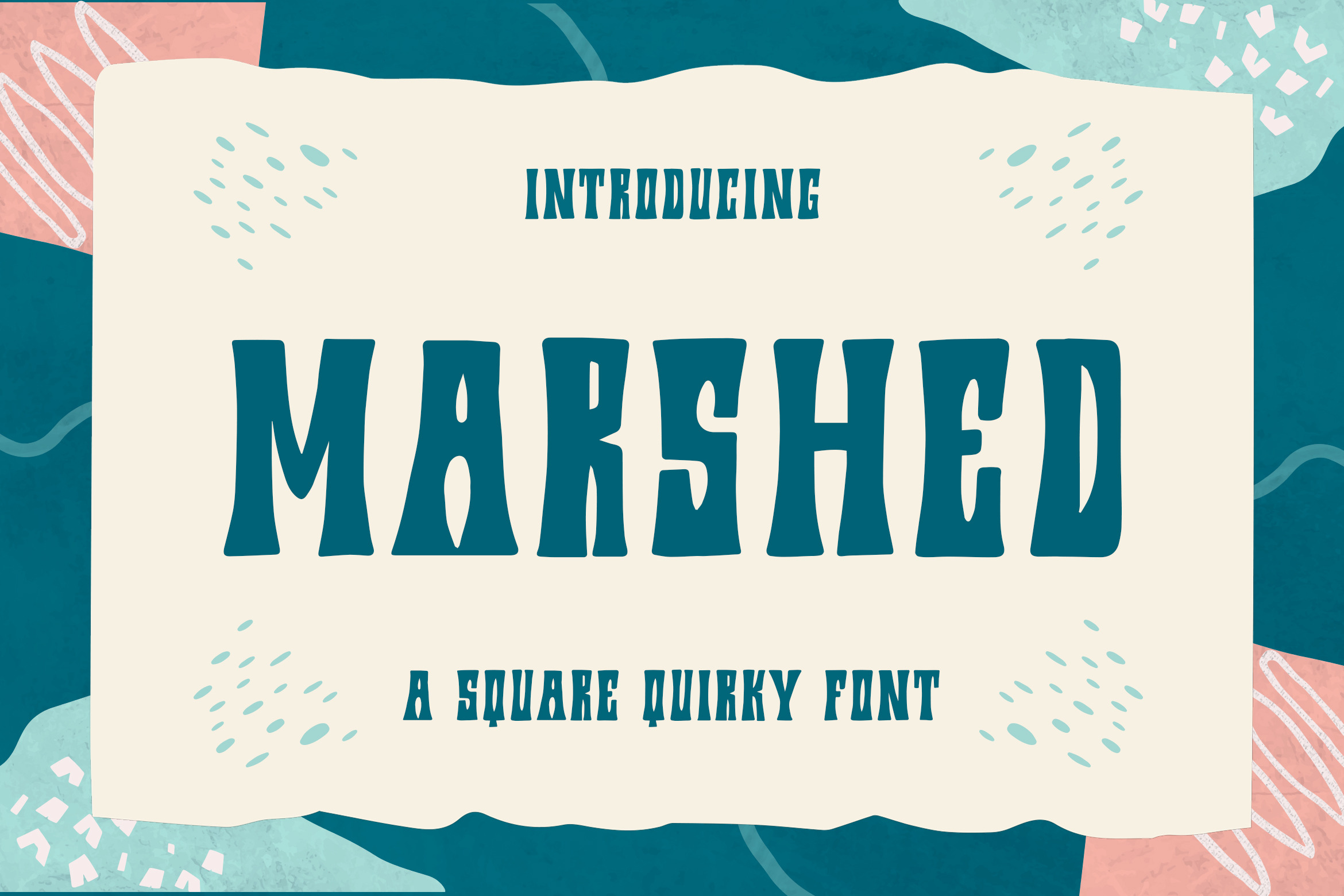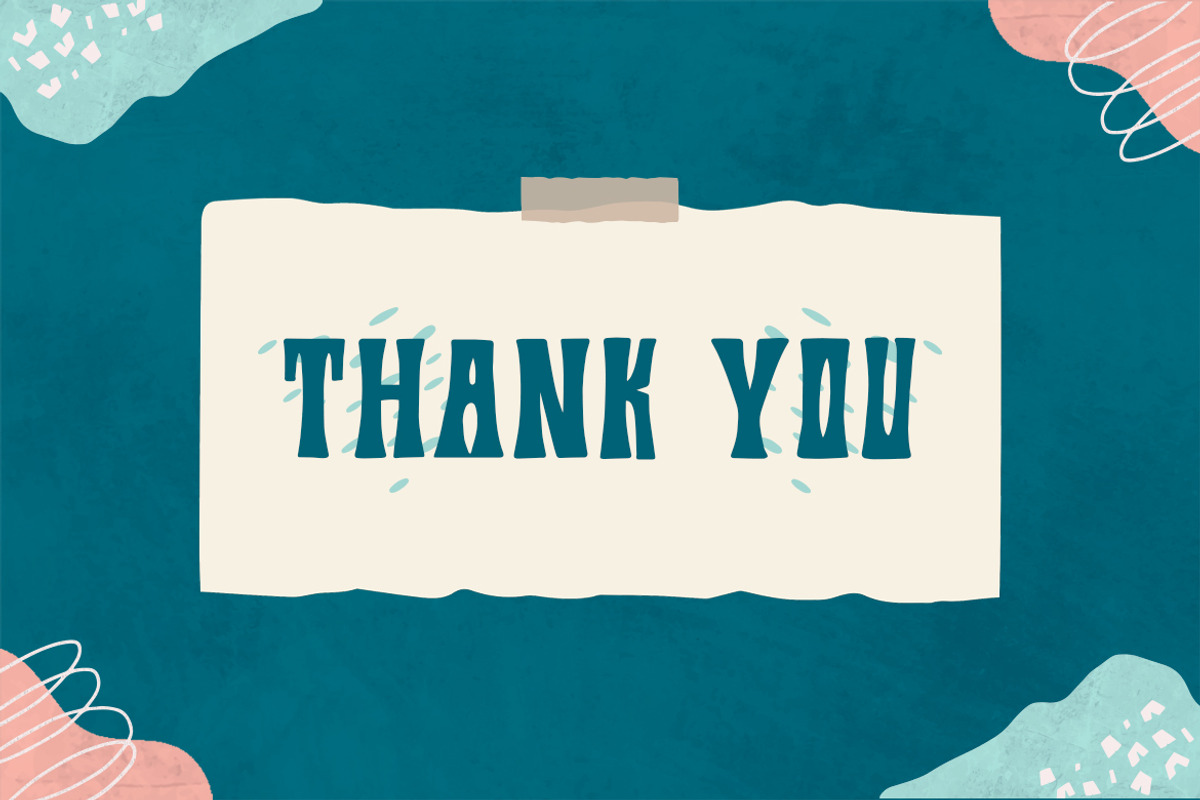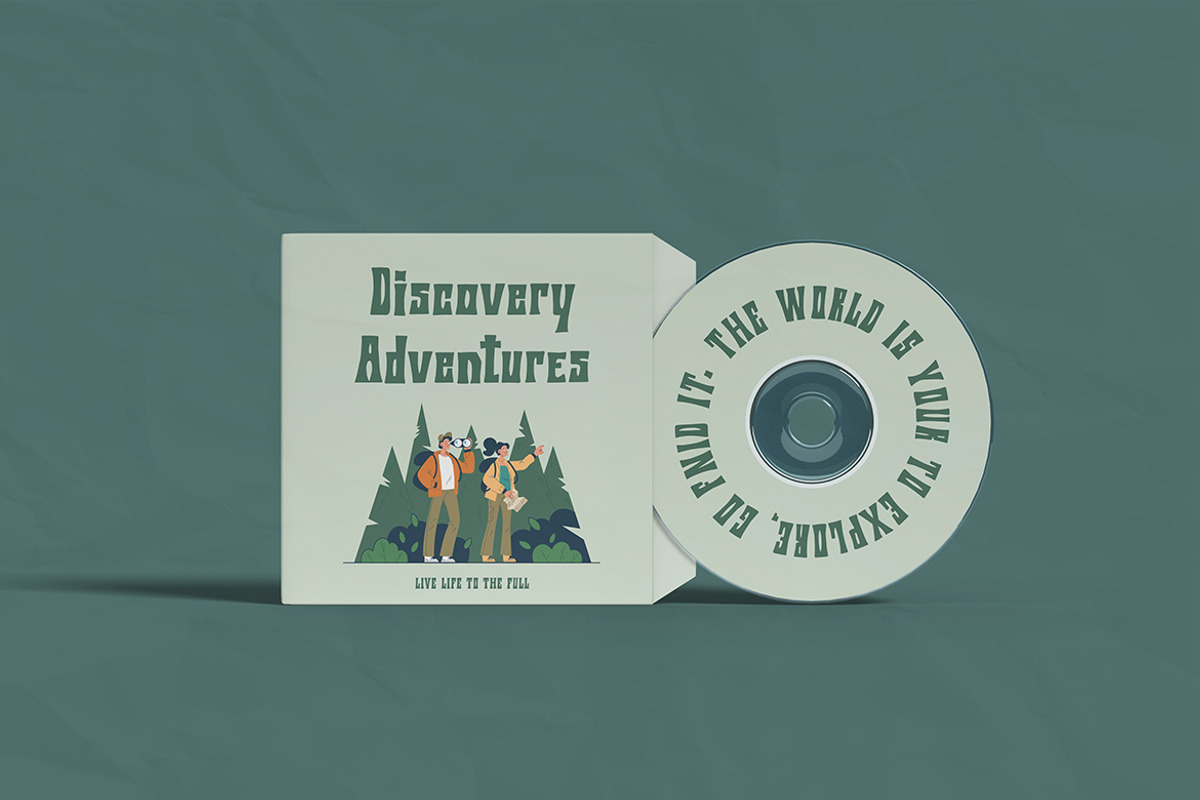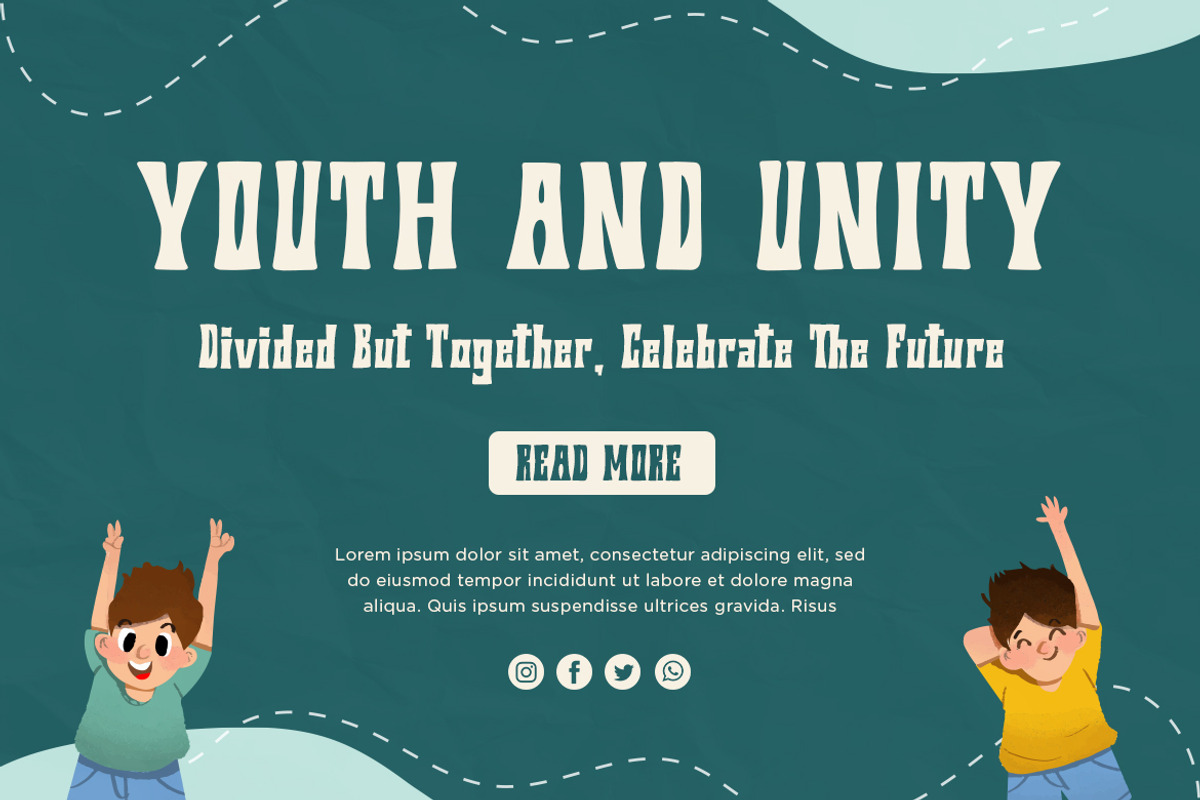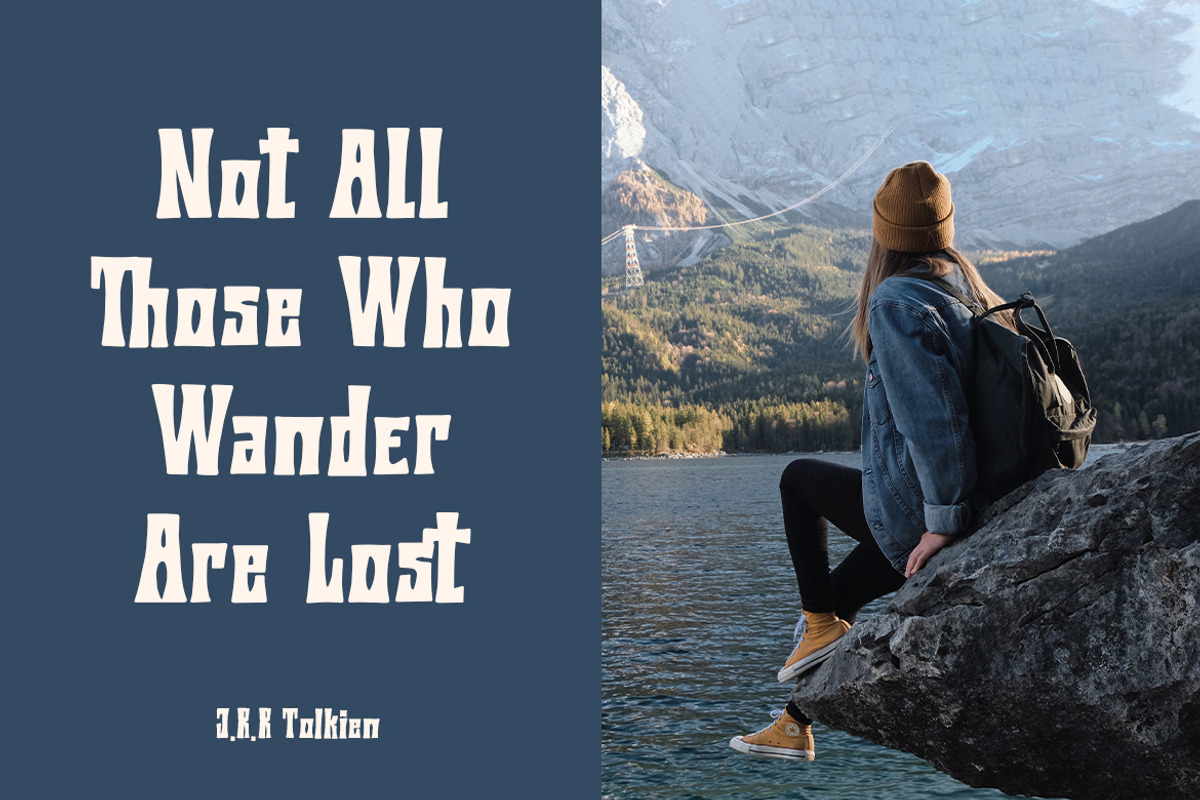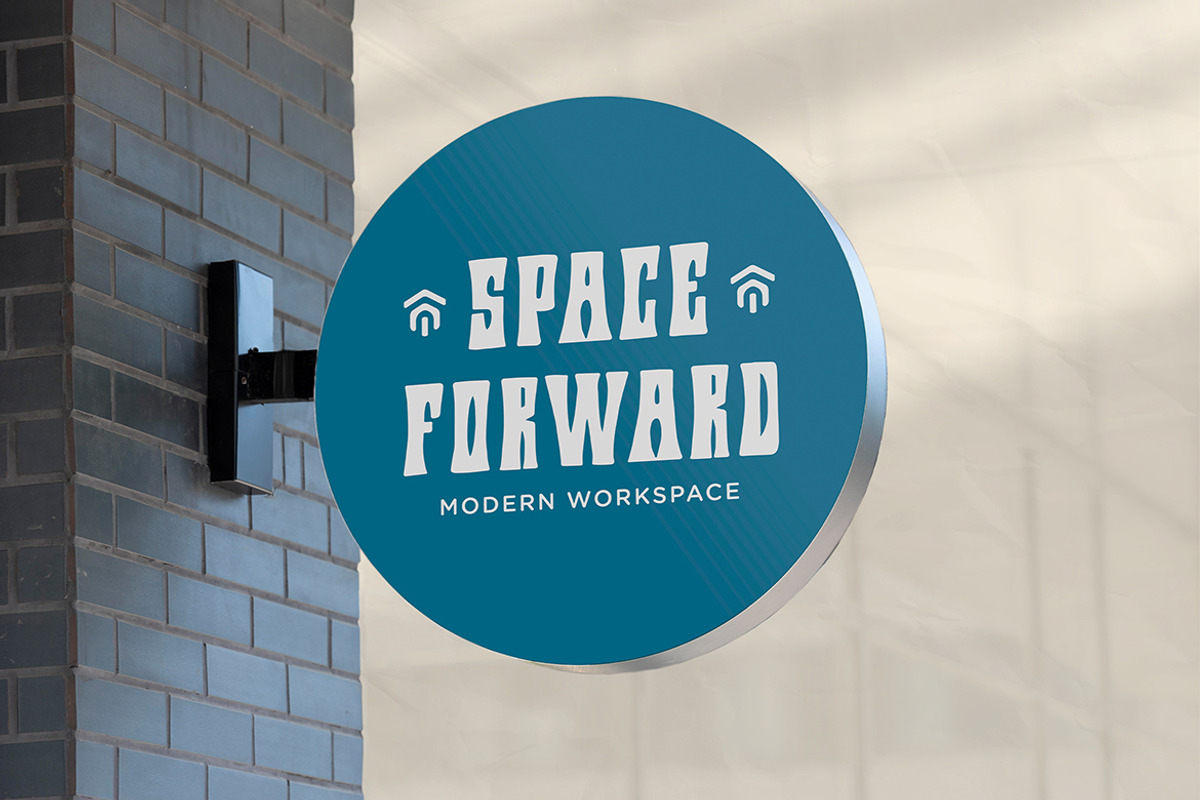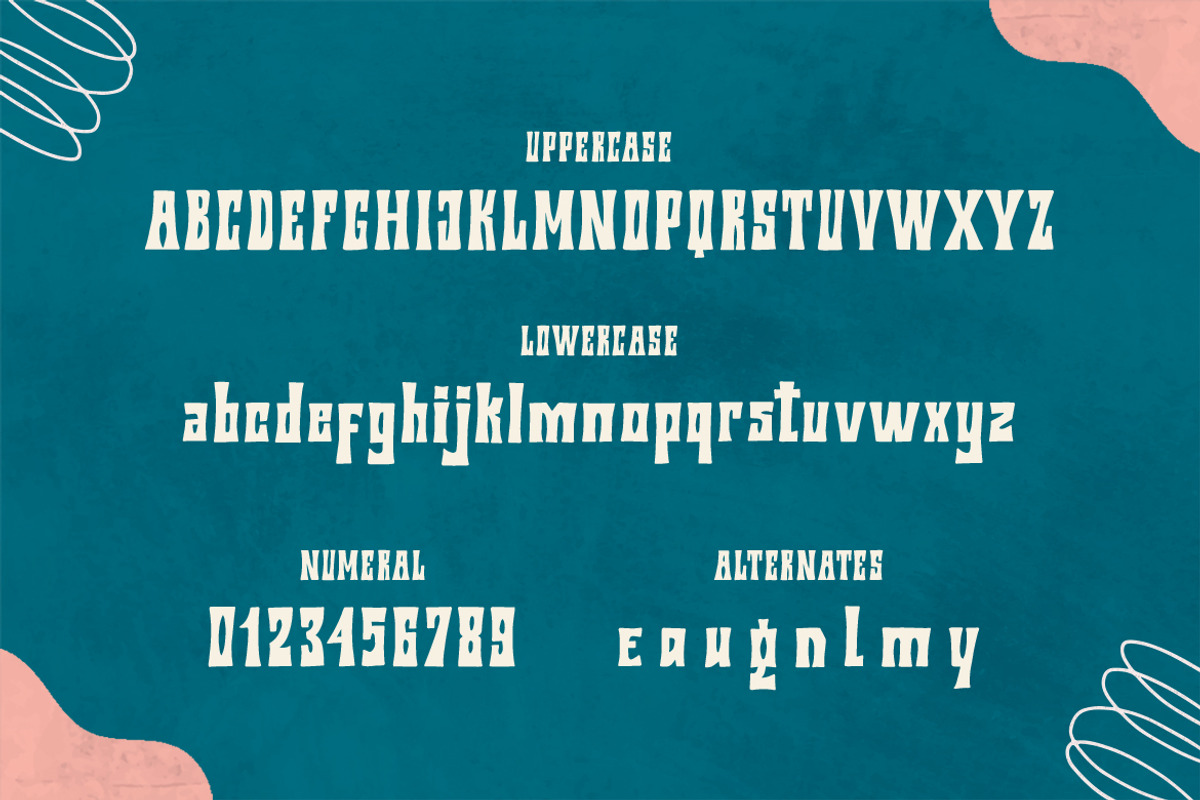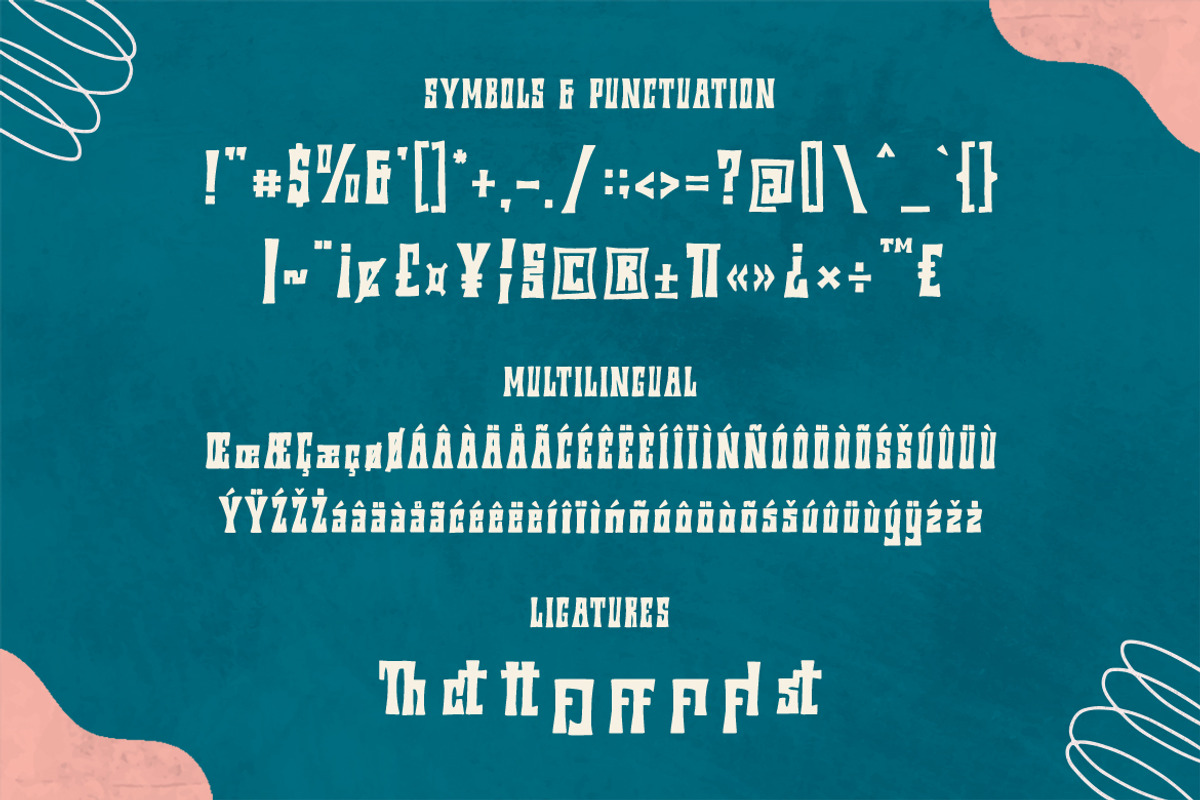
Marshed - A Square Quirky Font
Marshed is a playful, unique and quirky display font. It is PUA encoded which means you can access all of the glyphs and swashes with ease! This font is perfect for children themed designsand many more. Marshed has the potential to elevate any creation.
- Symbols & Punctuation
- Numeral